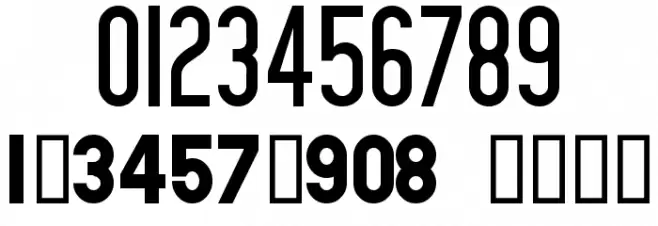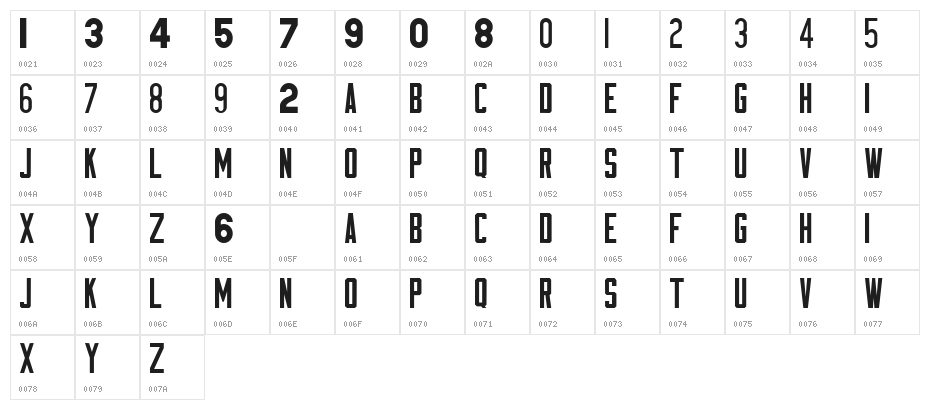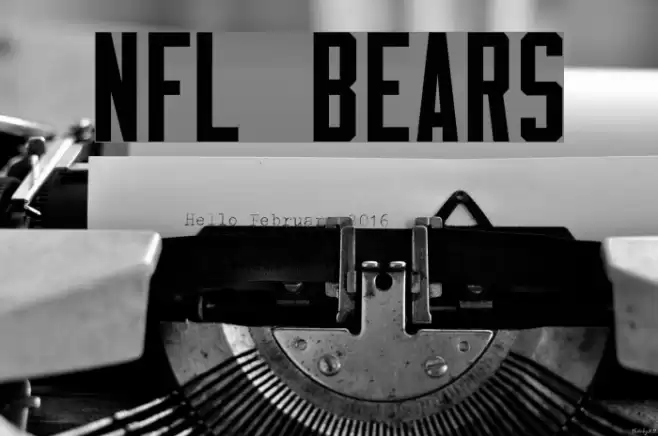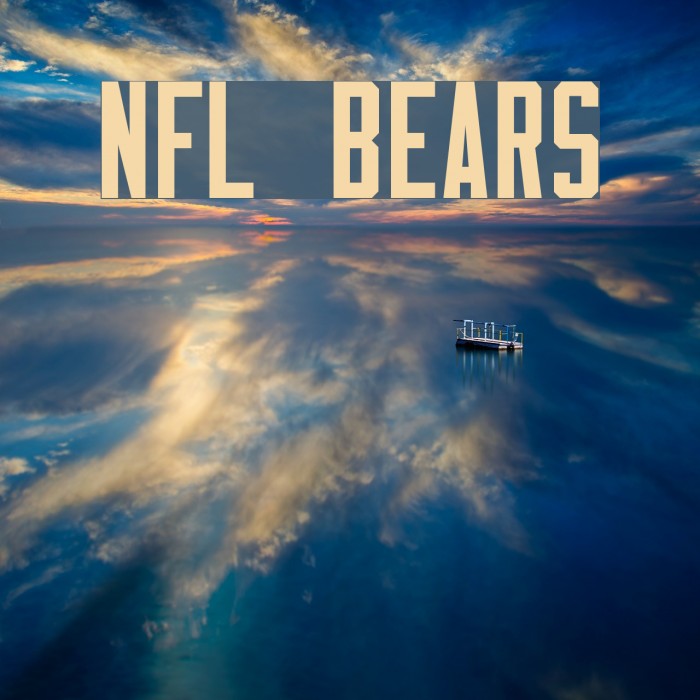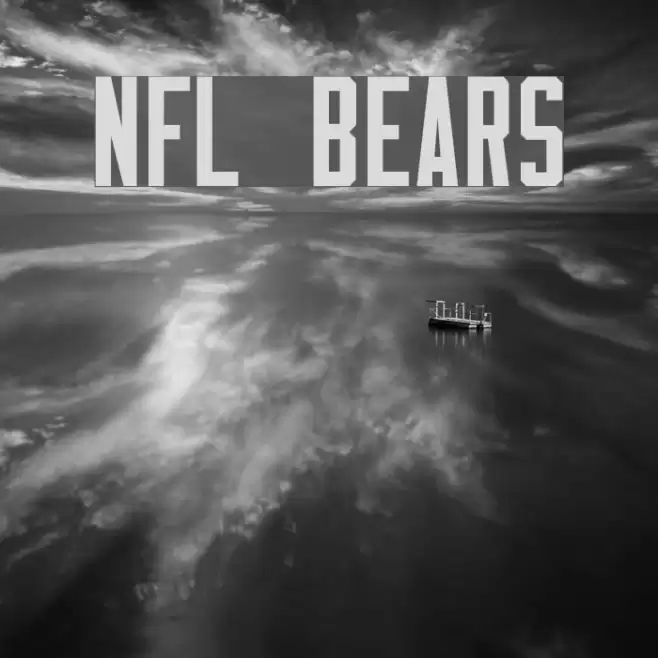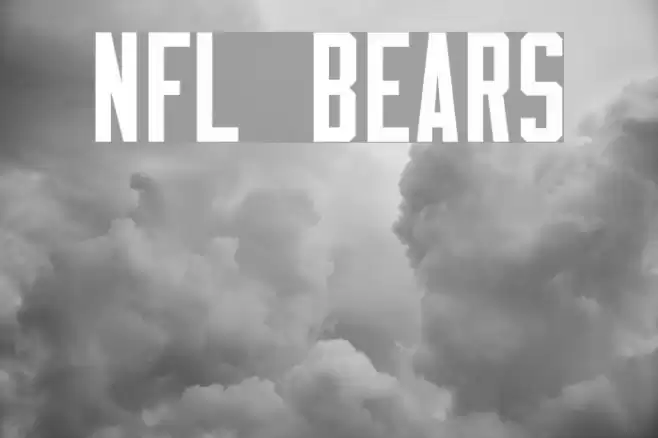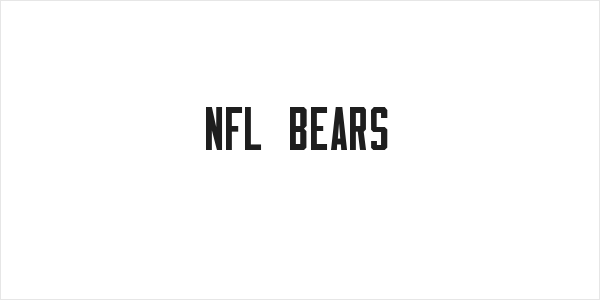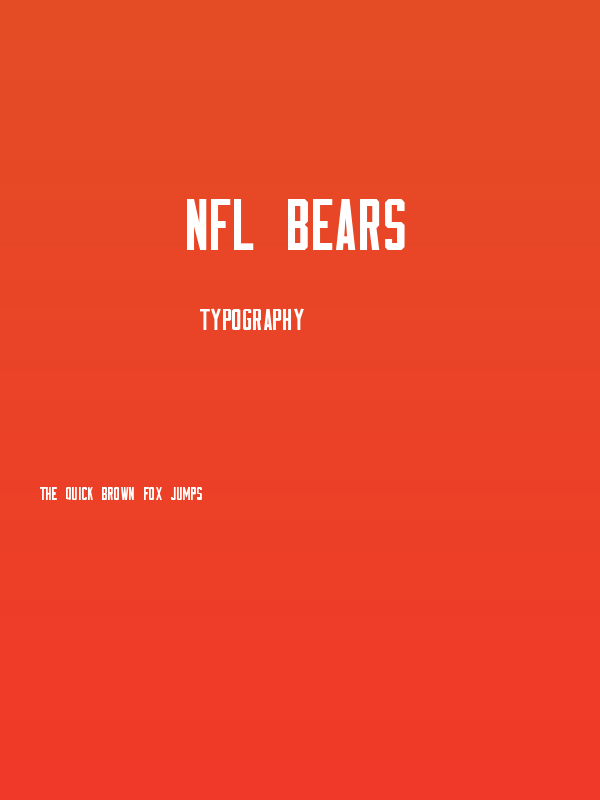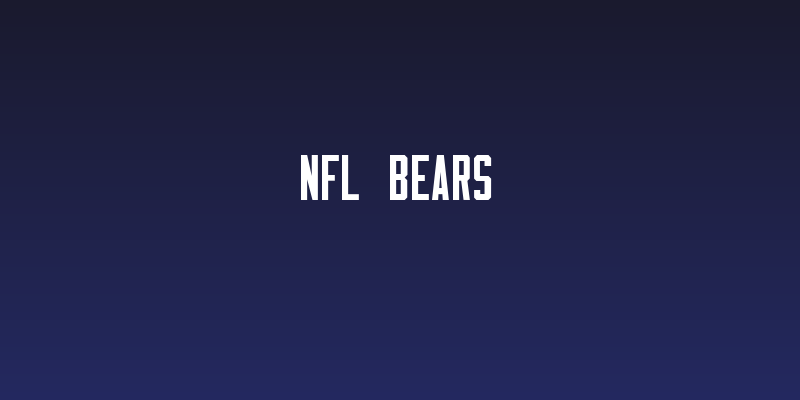
NFL Bears Font
NFL Bears Description
This font features a bold and impactful design with strong geometric shapes and a modern aesthetic. The uppercase letters are tall and narrow, creating a sense of height and strength, while the lowercase letters maintain a consistent width, ensuring readability. The numbers are designed with a similar boldness, making them stand out prominently. The overall style is clean and assertive, suitable for making a strong visual statement. The font's design is versatile, making it ideal for sports branding, posters, and headlines where a commanding presence is required.